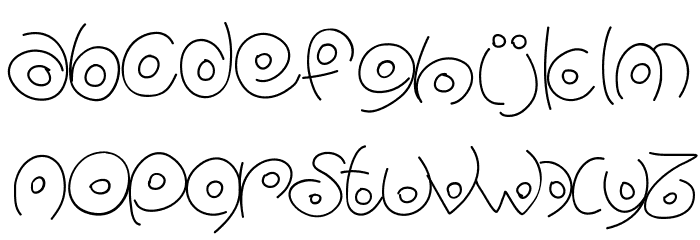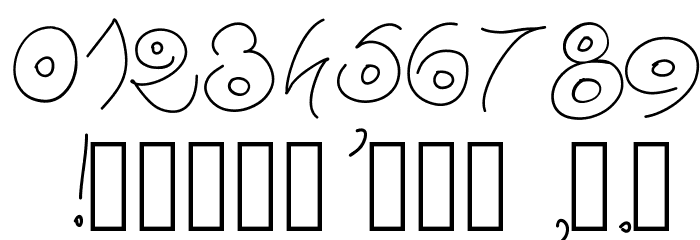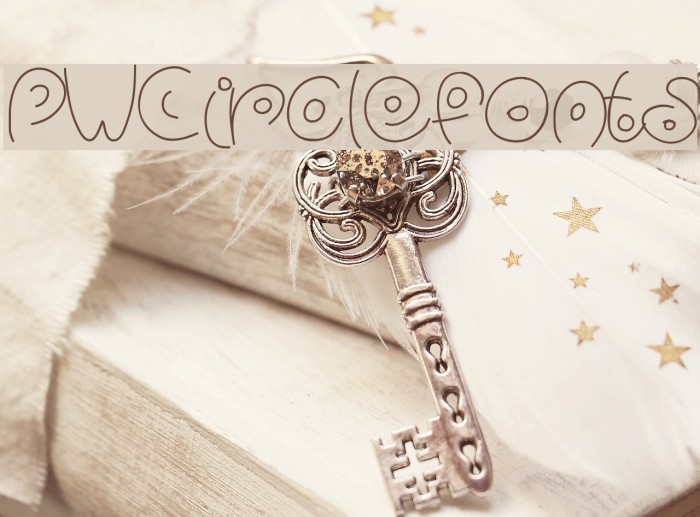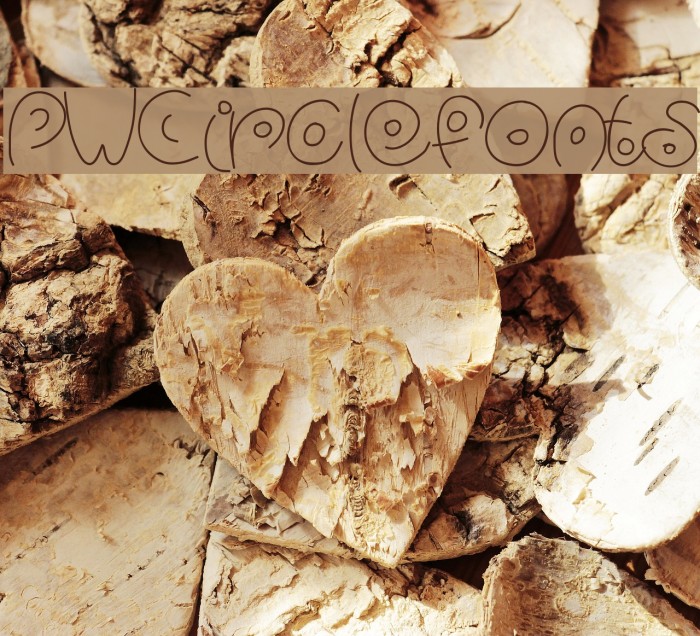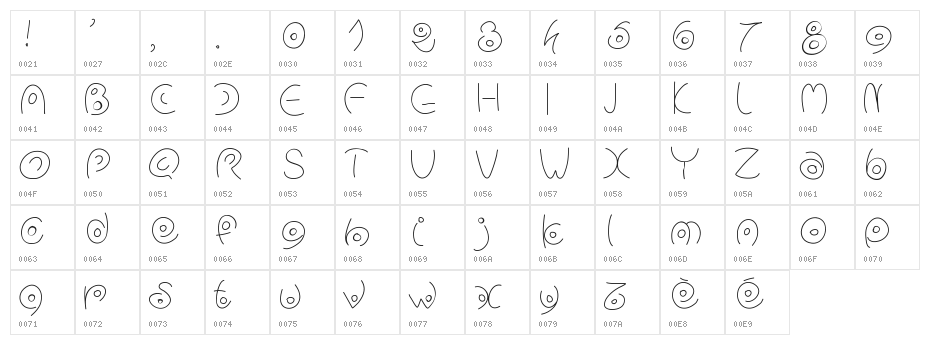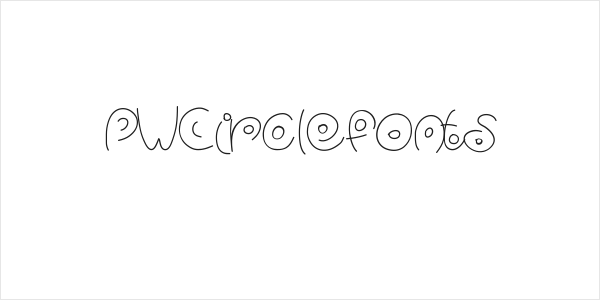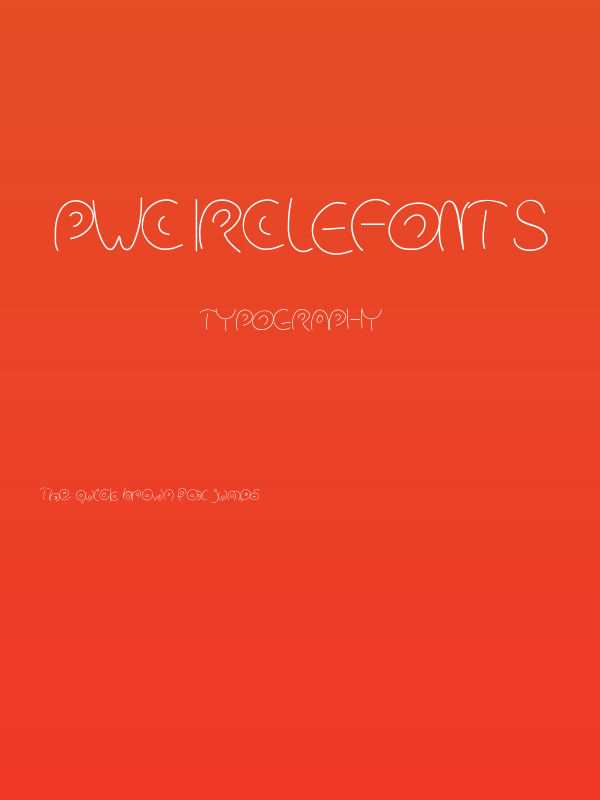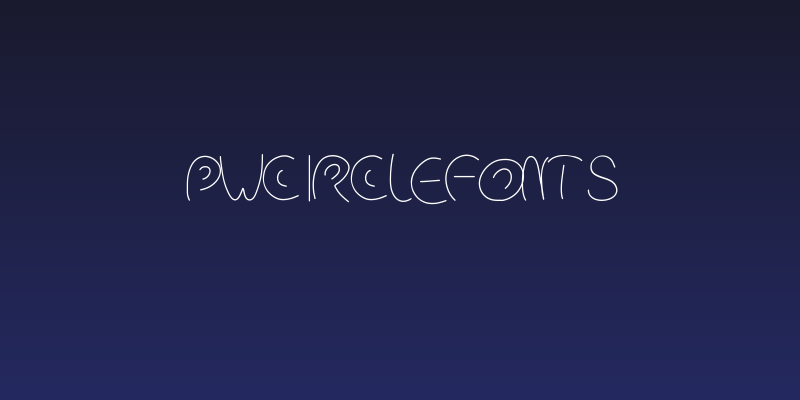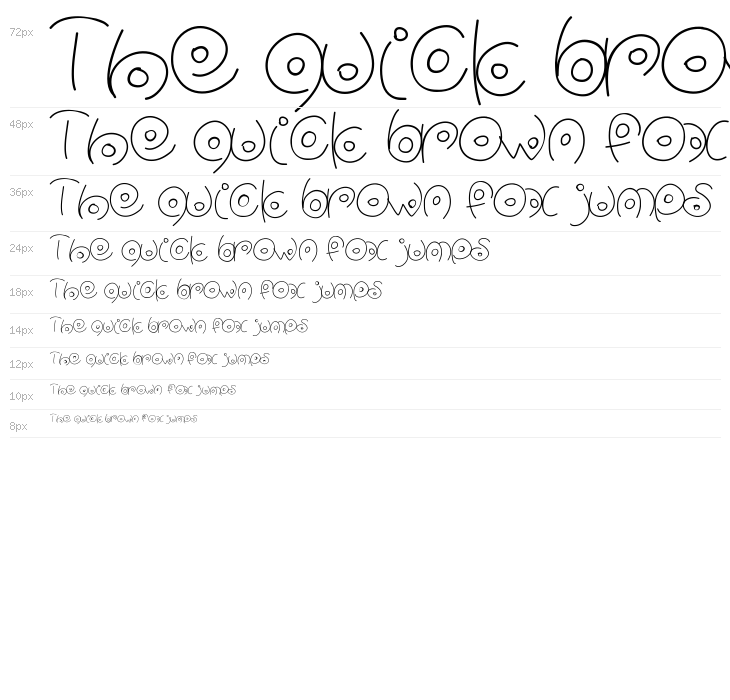
PWCirclefonts Font
This font features a unique and playful design with a circular motif that is consistent across all characters. The letters are formed with smooth, continuous lines that create a sense of movement and fluidity. Each character maintains a consistent circular theme, giving the font a cohesive and harmonious appearance. The overall look is modern and artistic, making it suitable for creative and contemporary projects. The font's distinct style is eye-catching and memorable, making it ideal for branding and design work that requires a touch of whimsy and creativity.
A playful, circular-themed font with smooth, continuous lines and a modern, artistic style.
- Proposed Projects: Ideal for branding, creative design projects, children's books, and playful advertising campaigns.
- Overall Style: Modern, Artistic
- Use Case: Logos, Headlines, Creative Projects